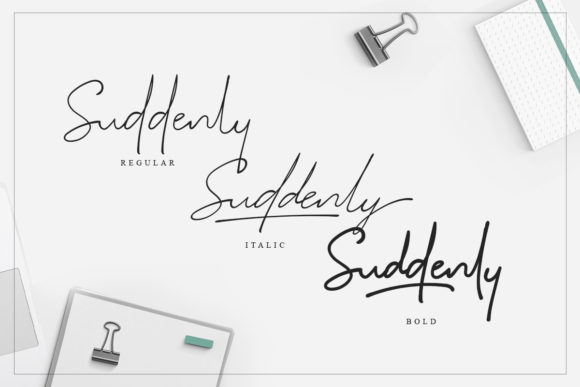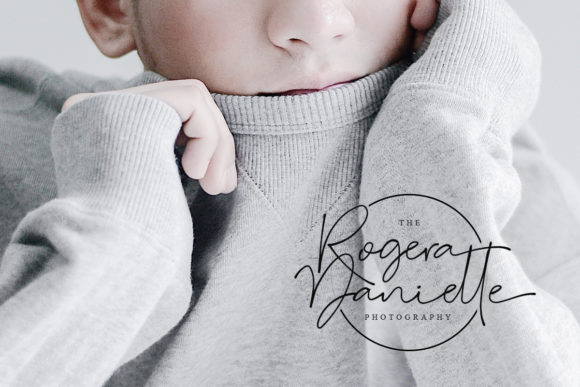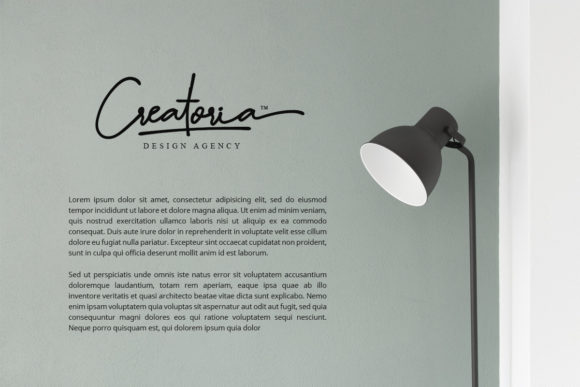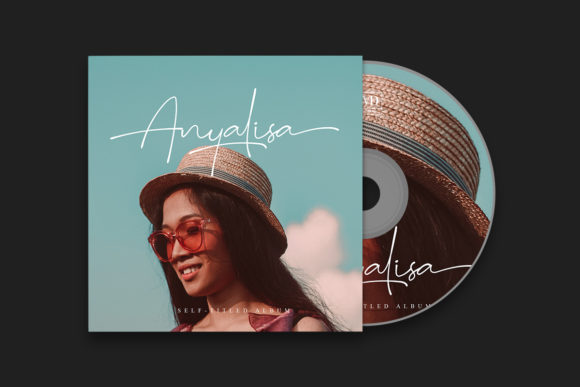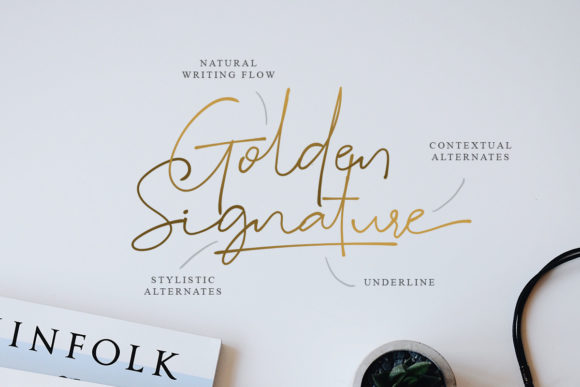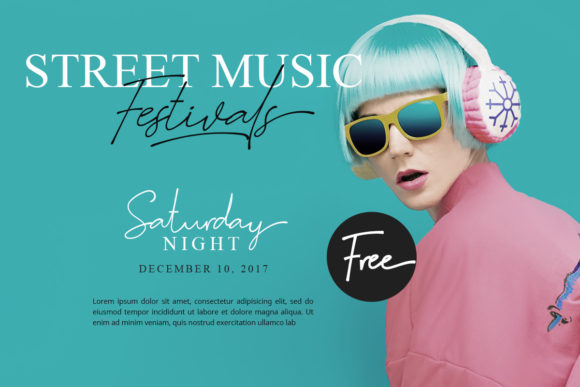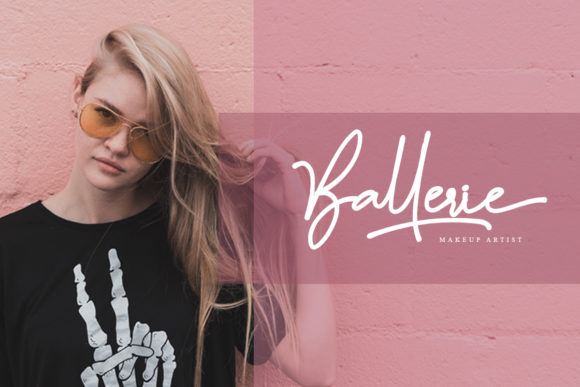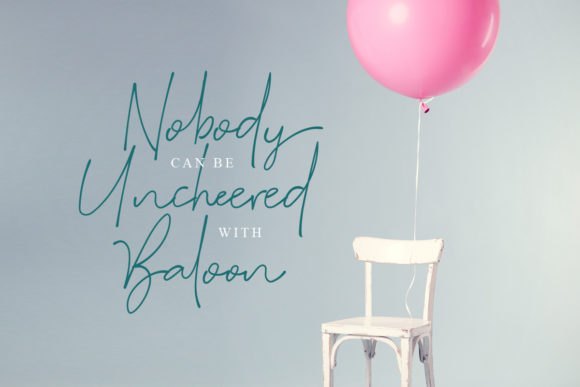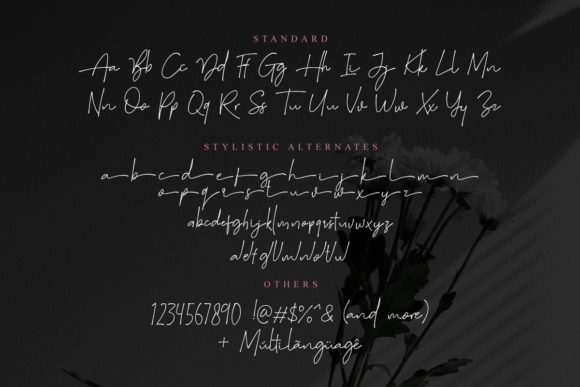
Suddenly Family Font
About Suddenly Family Font
The Suddenly is an elegant font family. It comes in a regular, bold, and italic style which gives you the opportunity to create multiple unique designs.